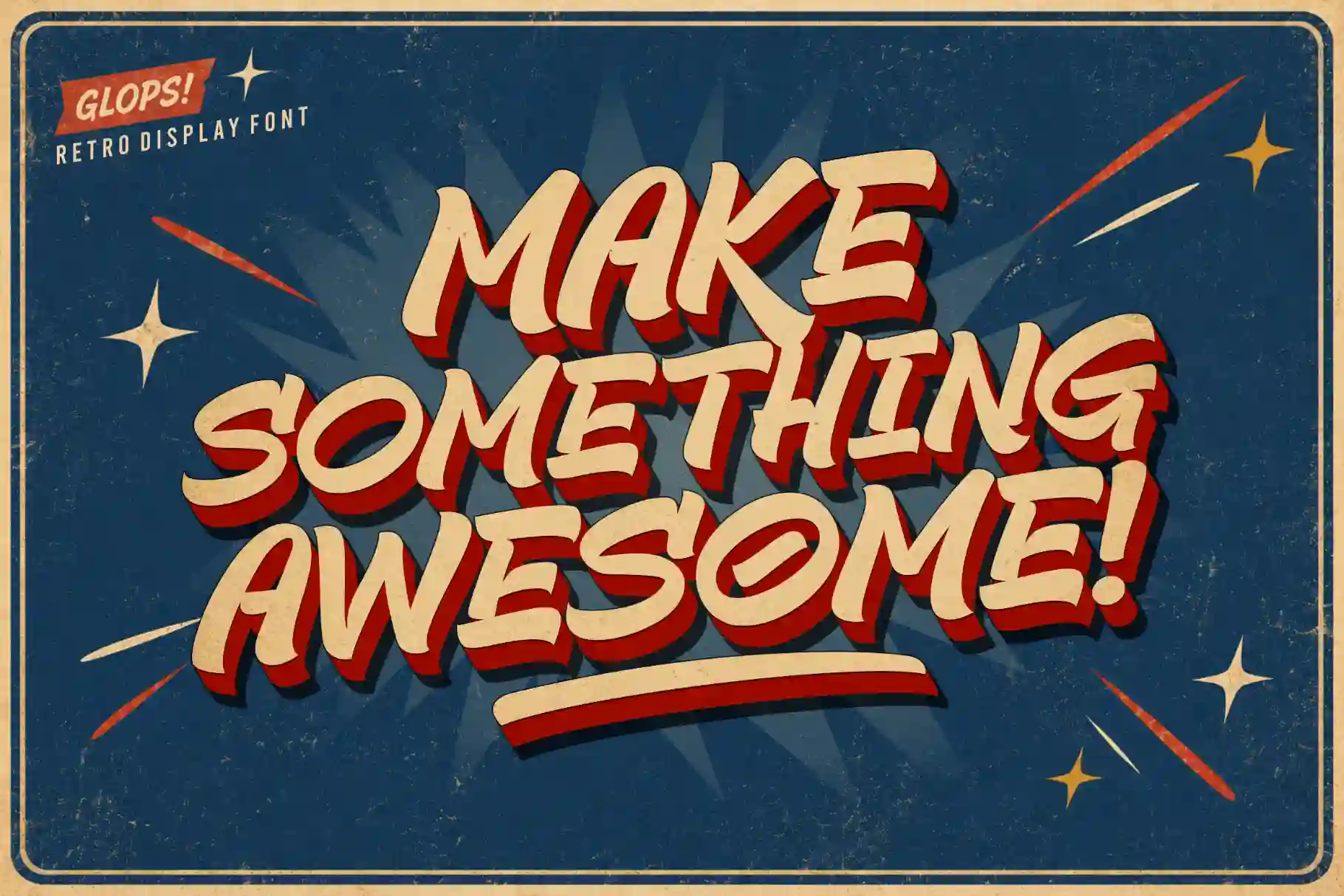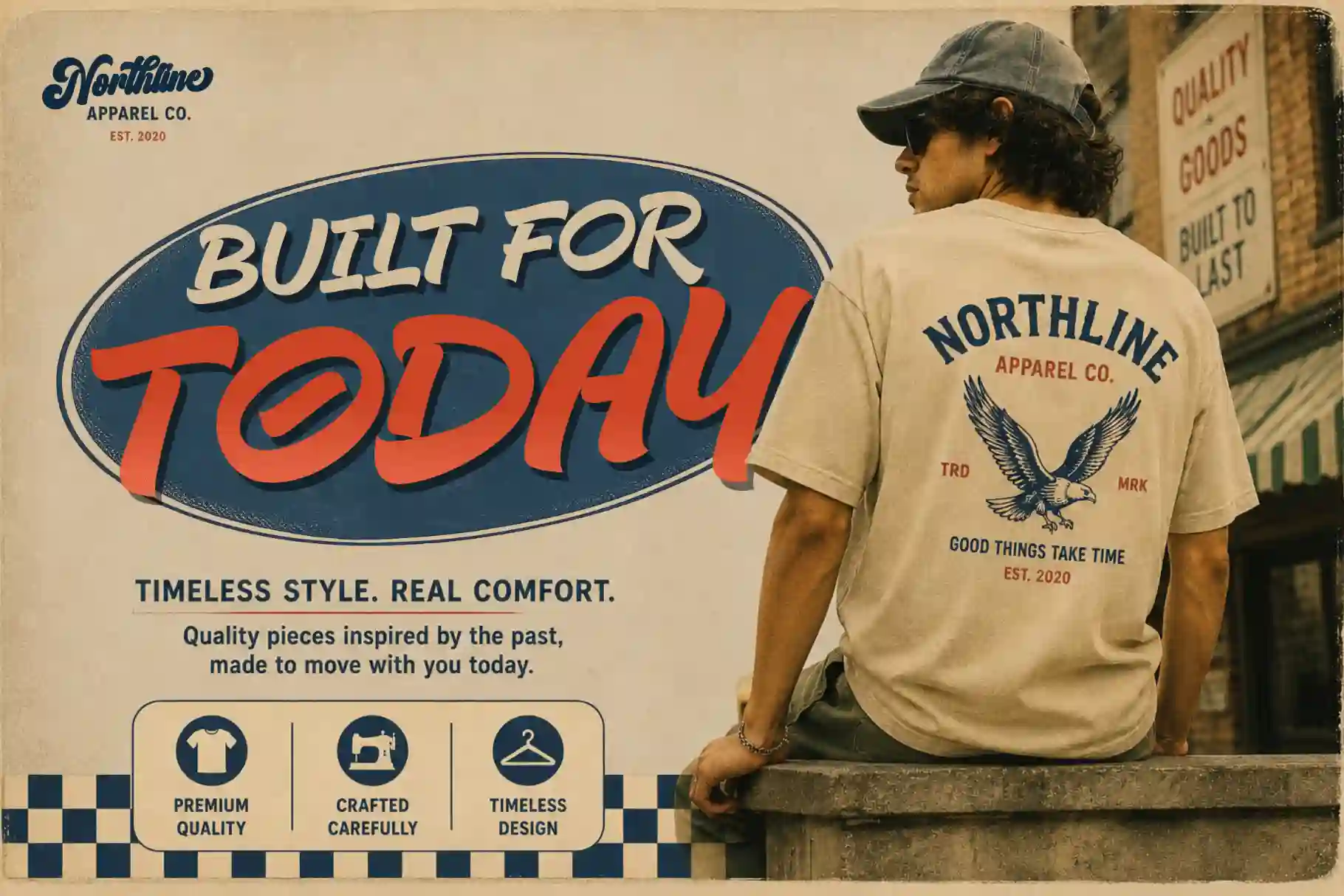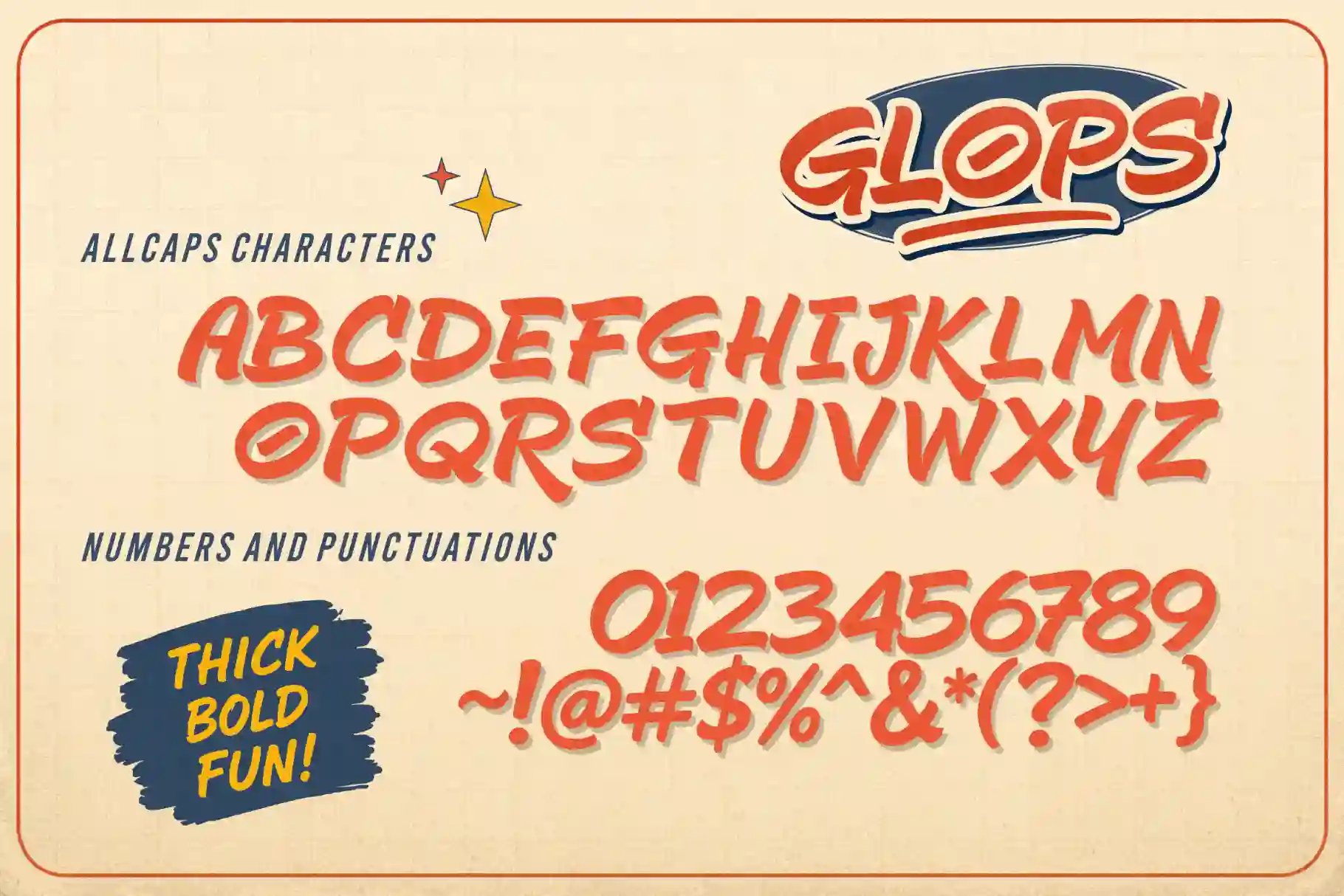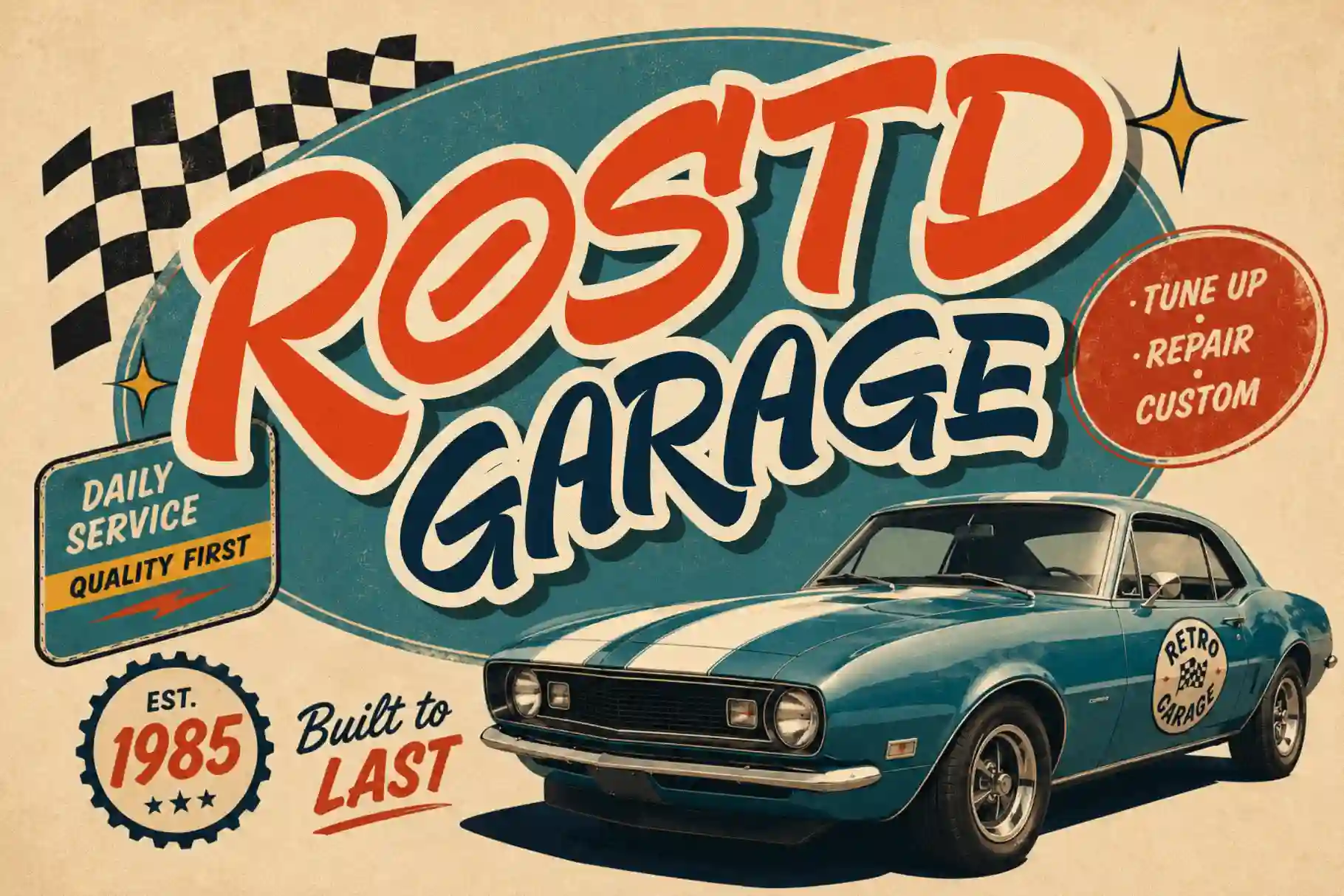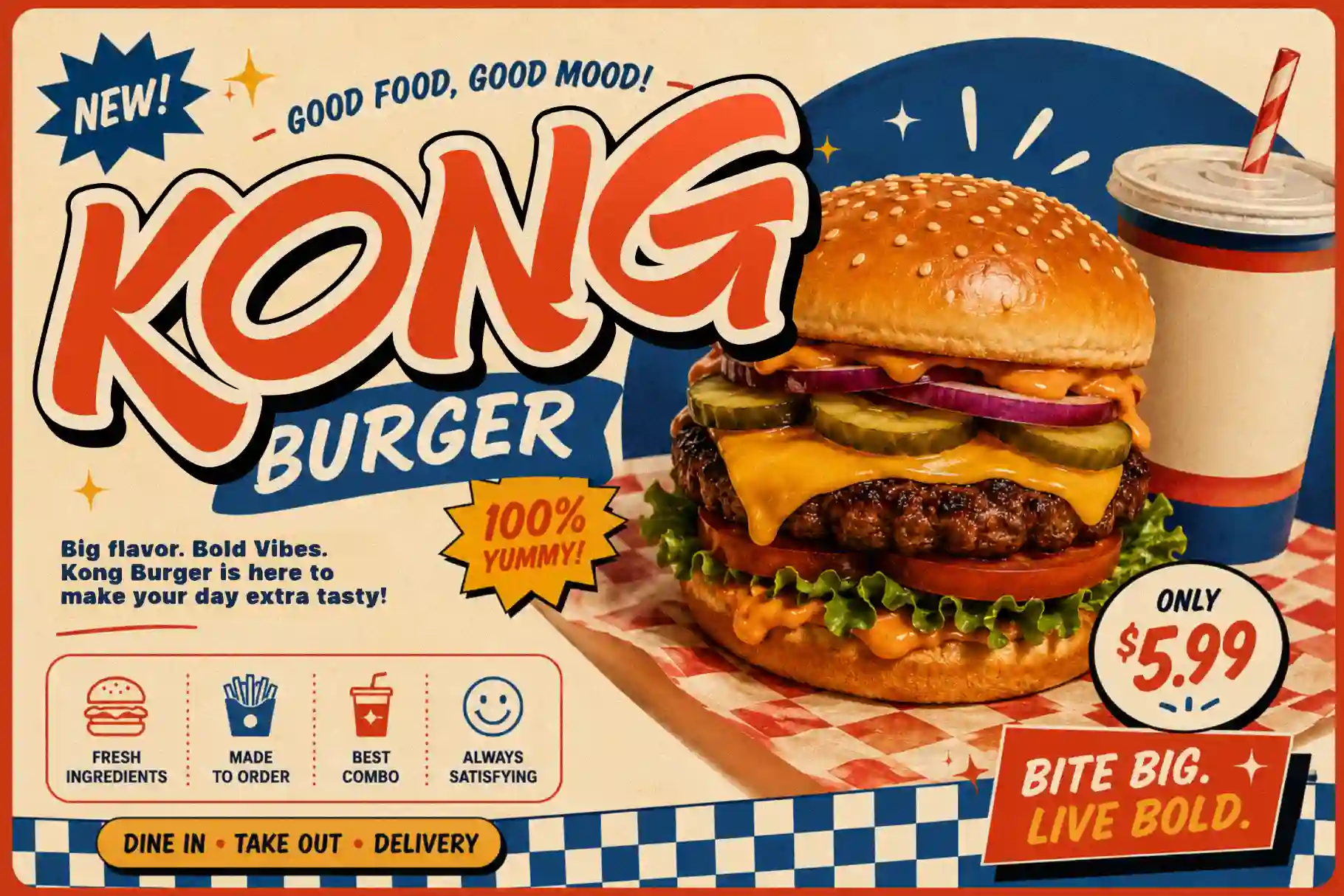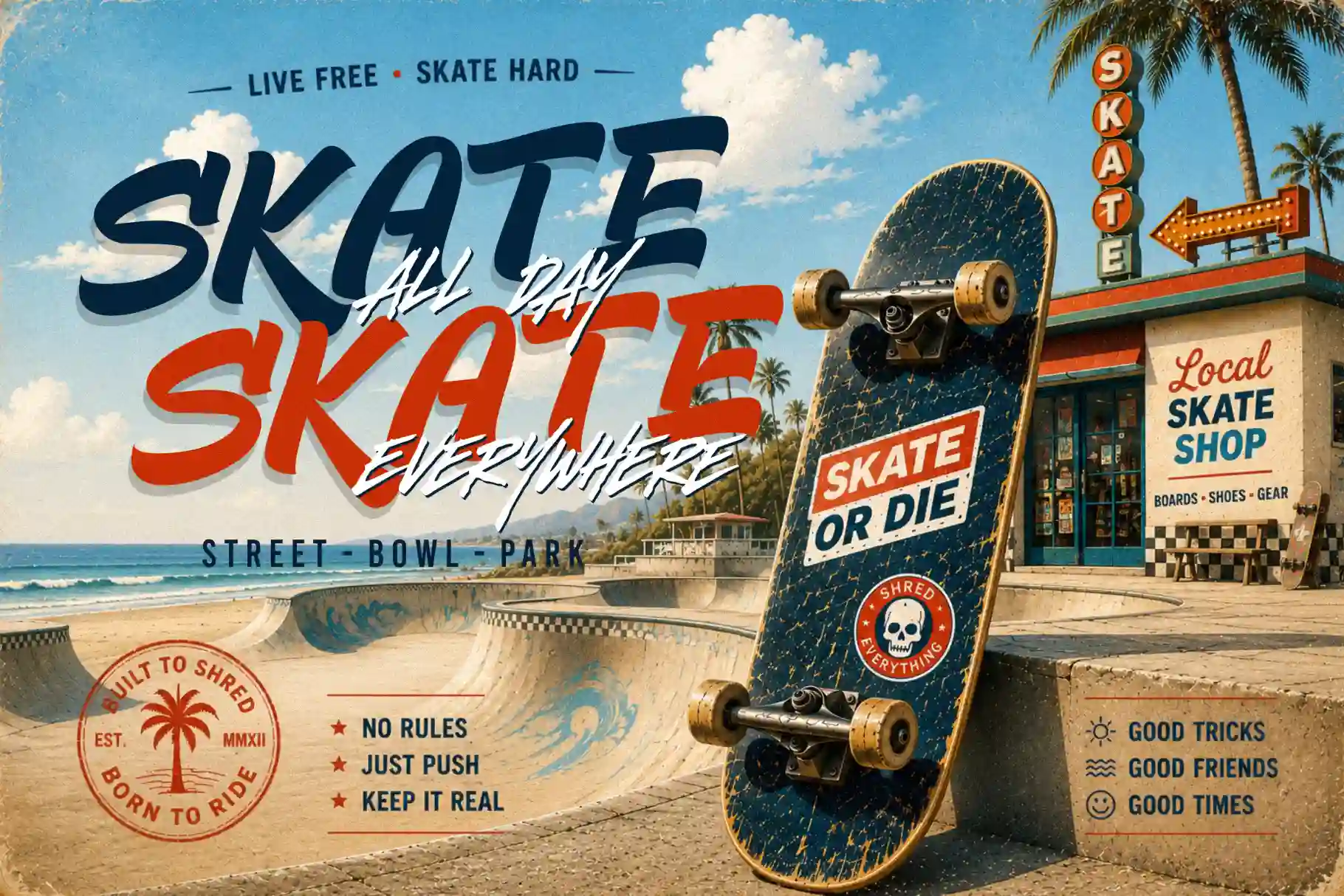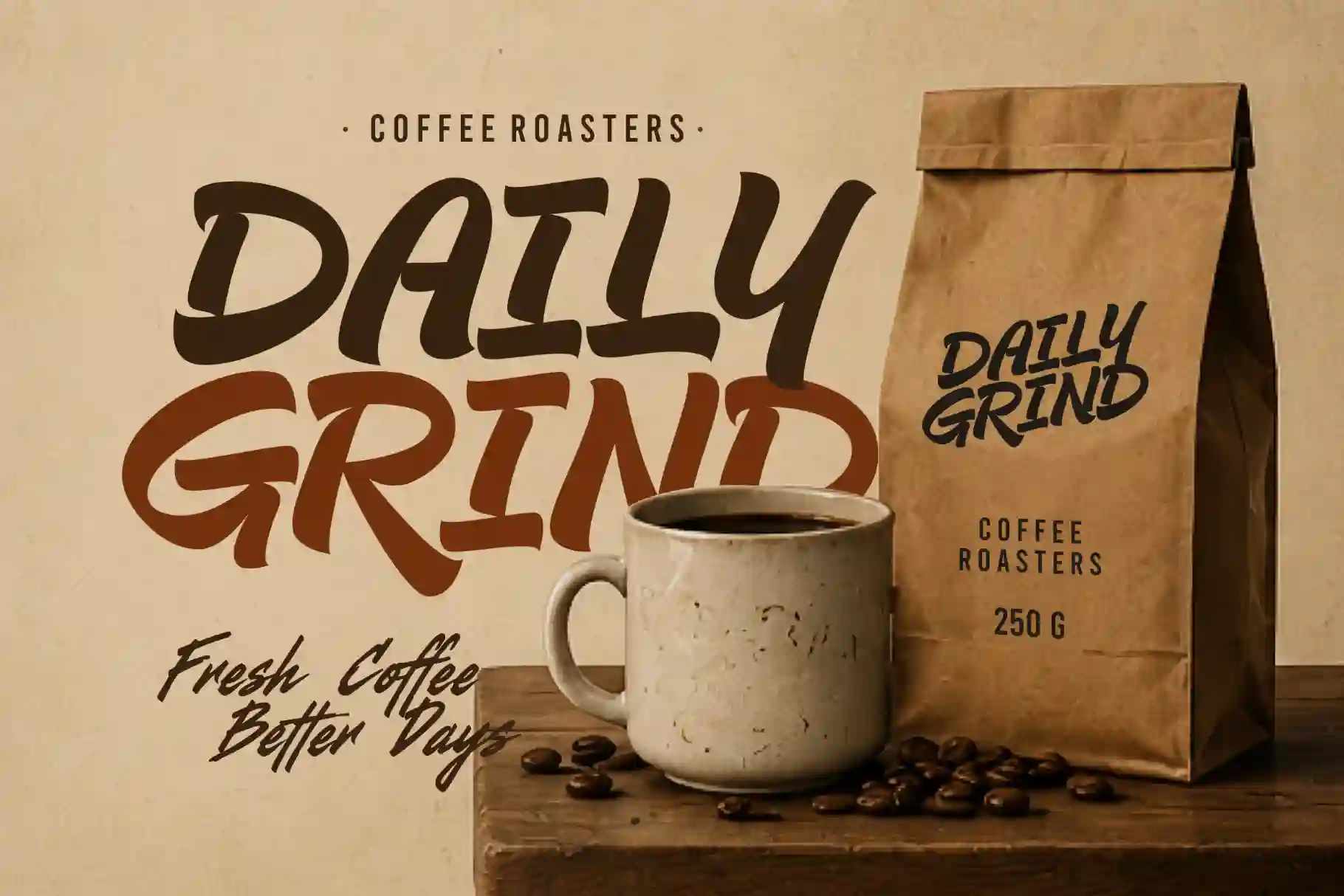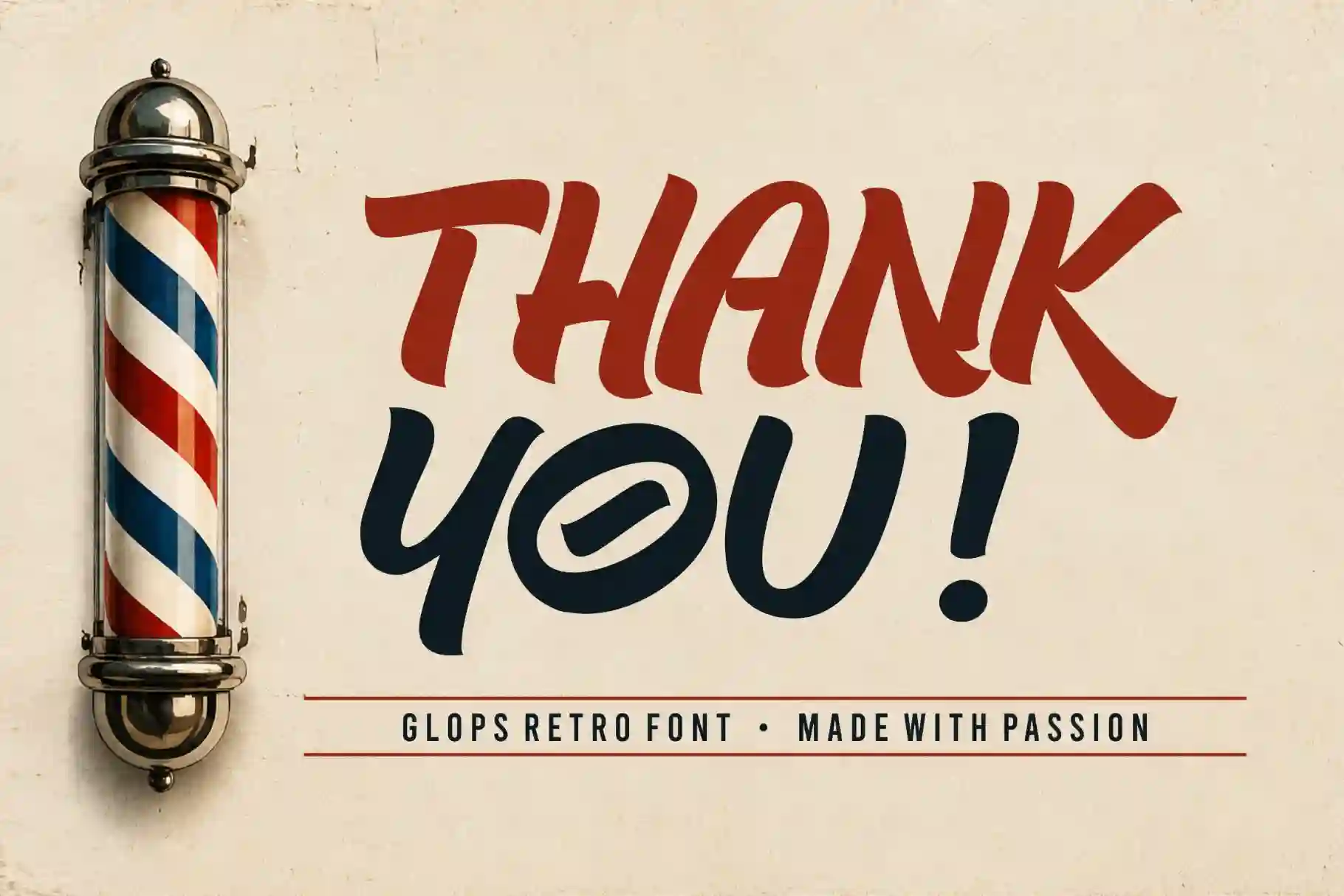
Retro Brush Font with Vintage Energy
Typography has the power to shape emotion, personality, and visual identity. Glops – Retro Brush Font is designed to bring nostalgic energy and bold handcrafted character into your creative projects. With expressive brush strokes and authentic retro aesthetics, this retro brush font is perfect for logos, café branding, posters, packaging, signage, and eye-catching headlines.
Inspired by vintage lettering and hand-painted signage, Glops delivers a timeless look while still feeling modern and fresh. Whether you are designing for a coffee shop, music event, creative branding project, or social media campaign, this retro brush font creates instant visual impact.
Retro Brush Font for Bold Logos and Headlines
A strong logo begins with memorable typography. Glops is crafted as a retro brush font that combines rough brush textures with confident letterforms, making every design feel alive and expressive. Its handcrafted style creates a human touch that digital typography often lacks.
The bold brush strokes make this retro brush font ideal for large display applications such as posters, banners, branding, YouTube thumbnails, and café signage. Designers looking for a font with authentic vintage soul will instantly connect with Glops.
Unlike clean minimalist fonts, Glops embraces texture and imperfection, giving your work personality and warmth.
Key Features of Glops – Retro Brush Font
- Allcaps Character Set
- Numbers & Punctuations Included
- Multilingual Support
- Authentic Hand-Painted Brush Style
- Vintage Inspired Letterforms
- Perfect for Logos, Posters, Branding, and Packaging
- Strong Display Font Personality
This retro brush font is carefully designed to maintain readability while still keeping its handcrafted brush authenticity.
Why Designers Love Glops Retro Brush Font
Creative professionals love Glops because it balances expressive energy with professional usability. Many vintage fonts lose readability when scaled down, but this retro brush font maintains strong visibility in both print and digital applications.
Here are some reasons why designers choose Glops:
- Authentic retro brush texture
- Strong handcrafted personality
- Bold and impactful headlines
- Excellent for café and restaurant branding
- Perfect for vintage-inspired marketing campaigns
- Works beautifully in packaging and signage projects
Because of its dynamic brush character, Glops helps designs feel emotional, energetic, and memorable.
Retro Brush Font for Café Branding and Packaging
Food and beverage branding often relies on emotional connection and atmosphere. Glops works exceptionally well as a retro brush font for café logos, coffee packaging, menus, and promotional materials.
Its handcrafted brush style creates warmth and authenticity, making customers feel connected to the brand experience. Whether used for artisan coffee shops, bakery packaging, or retro restaurant branding, Glops instantly communicates personality and creativity.
Retro Brush Font for Posters and Creative Advertising
Posters require typography that captures attention immediately. Glops delivers exactly that. This retro brush font performs beautifully in music posters, event promotions, travel campaigns, and creative advertising.
Its textured brush strokes create movement and visual rhythm, making every headline feel dynamic and alive. Designers can combine Glops with bold imagery or minimalist layouts to create striking visual contrast.
Font Pairing Ideas for Glops Retro Brush Font
Pairing fonts correctly can elevate a design dramatically. Glops works especially well with clean sans serifs and energetic brush companions.
Recommended font pairings:
- Hyper Squad – Freestyle Brush Font
Adds raw freestyle brush energy for dynamic poster compositions. - Roadpunks – Handbrush Typeface
Creates a rebellious handcrafted combination perfect for bold branding projects. - Bolde – Powerful Sans Serif
Balances Glops’ textured personality with clean geometric structure for professional layouts.
Combining Glops with these typefaces helps designers create layered typography systems with both contrast and harmony.
Retro Brush Font with Multilingual Support
Modern branding requires global flexibility. Glops includes multilingual support, allowing designers to use this retro brush font across international projects.